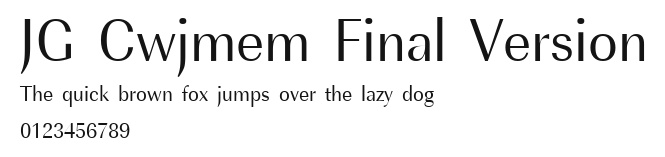
About JG Cwjmem Final Version.ttf
JG Cwjmem Final Version.ttf is a modern, elegant sans-serif font designed for ultimate readability and visual harmony. Perfect for branding, headlines, web design, and print materials.